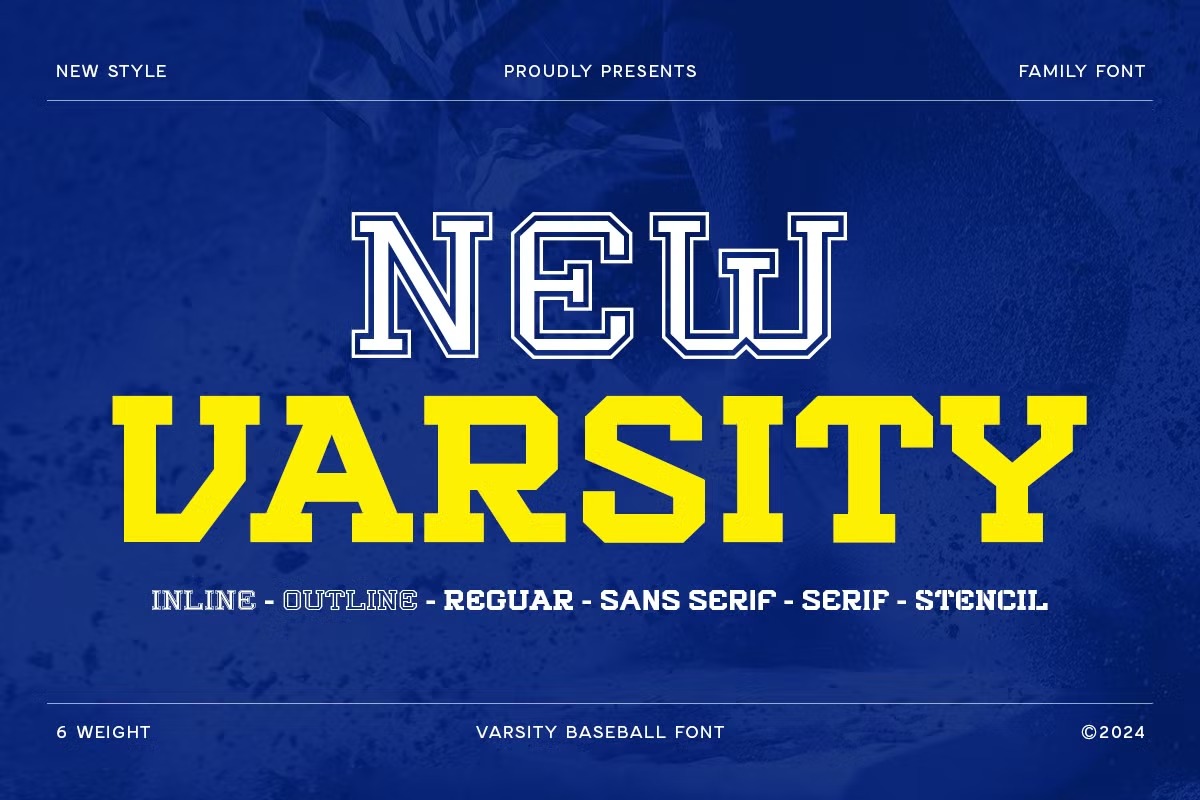
New Varsity - Baseball Font Family
Professional varsity baseball font family designed to give your sports designs a unique, modern edge with authentic athletic style. New Varsity delivers 6 distinctive styles crafted specifically for professional varsity baseball applications. Each style features a unique shape that adds value to your design while maintaining efficiency and readability. This comprehensive font family provides the perfect solution for designers and product owners who need their sports projects to look both profess...